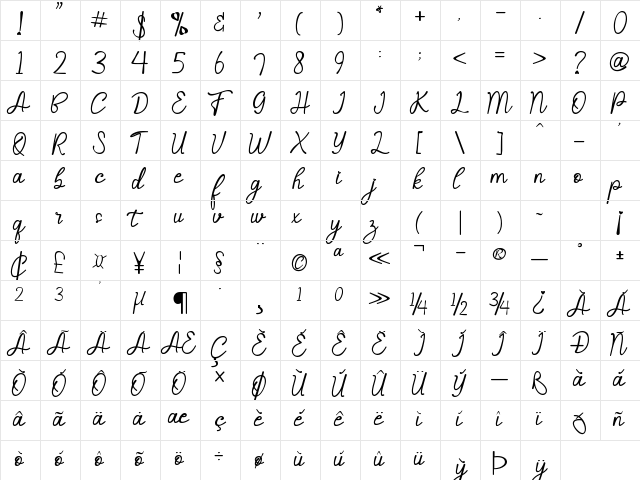
Selvia Cahya Regular
Design Context for Selvia Cahya Typeface
Selvia Cahya takes a measured approach to typography — its balanced proportions and neutral character make it a reliable workhorse for both digital and print work.